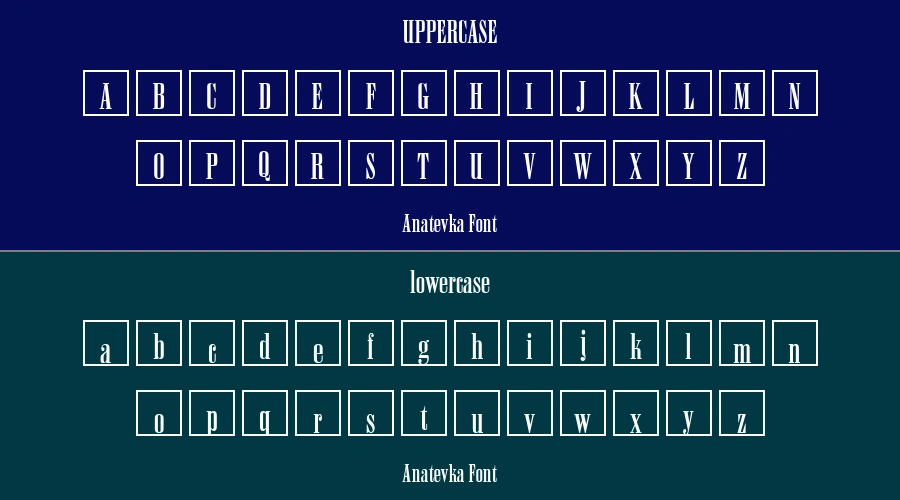
About Anatevka Font
Anatevka Font embodies typographic excellence through its masterful combination of commanding presence and consistency. Created for social media content, this typeface delivers exceptional accuracy and design innovation across all applications. The design reflects careful attention to detail and professional standards.
Advanced capabilities include distinctive commanding presence and versatile lining figures, giving designers creative control. When used in white papers, Anatevka Font exhibits remarkable screen rendering. The harmonious balance between aperture size and standards alignment sets this typeface apart.